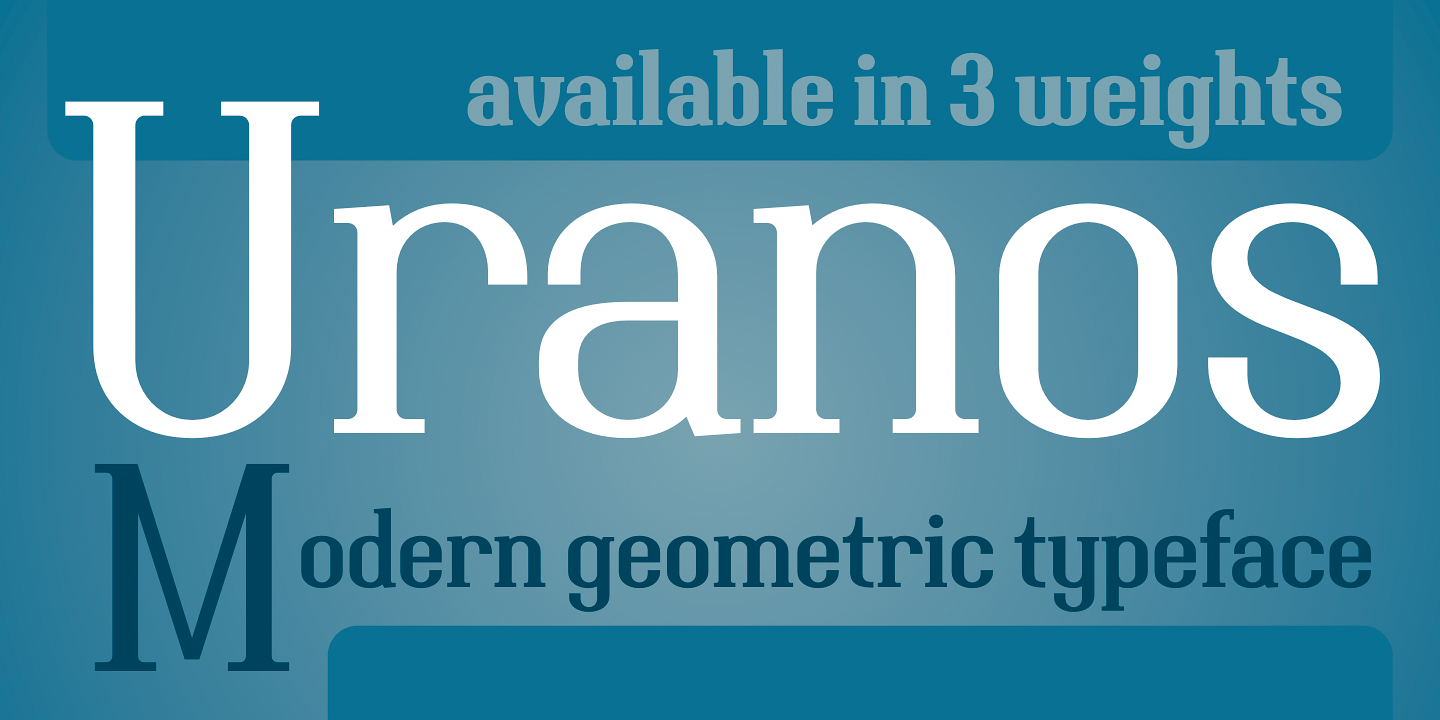
Uranos Font Free Download – A Futuristic & Minimalist Typeface for Modern Designs
Looking for a sleek, cutting-edge font that captures the essence of innovation? Uranos Font Free Download delivers a clean, geometric design perfect for tech brands, sci-fi projects, modern logos, and contemporary editorial layouts. Its sharp lines and futuristic vibe make it a standout choice for forward-thinking creatives.
Why Choose Uranos Font?
Uranos Font Free Download combines minimalist precision with high-tech aesthetics, offering:
Ultra-clean, geometric letterforms for a modern look
Excellent readability in both headlines and body text
Multilingual support for global design projects
Versatile weights for dynamic typographic hierarchy
Uranos Font Free Download – Perfect for Futuristic Branding
Elevate your projects with this stylish typeface in:
Tech startups & app interfaces
Sci-fi book covers & gaming graphics
Fashion editorials & modern branding
Minimalist websites & digital ads